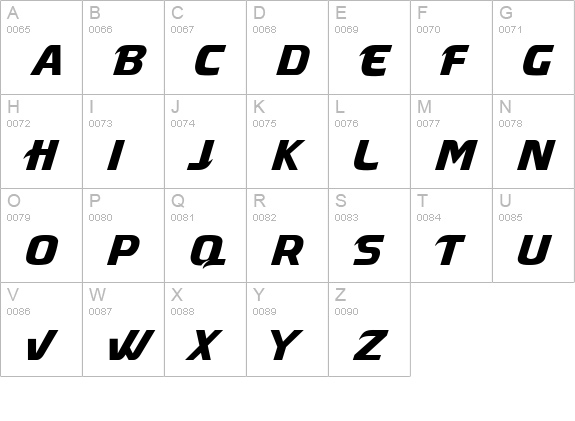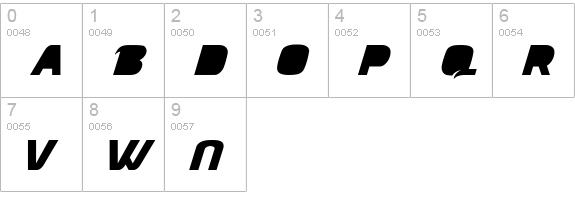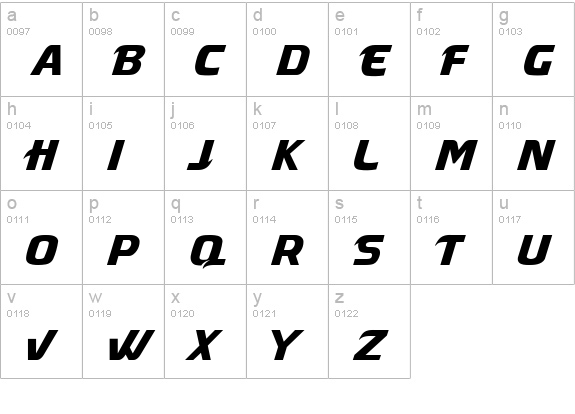
Masque Font Details
Introducing Masque Font, a beautifully crafted typeface that exudes elegance and sophistication. With its sleek and modern design, Masque Font is perfect for adding a touch of class to any project. Its clean lines and refined curves create a sense of balance and harmony, making it an ideal choice for both digital and print designs. But what truly sets Masque Font apart is its versatility. Whether you're designing a logo, creating a stunning website, or crafting eye-catching social media graphics, this font will effortlessly elevate your work to new heights. Its timeless appeal ensures that it will remain relevant for years to come, making it a valuable asset for any designer or creative. And the best part? Masque Font is absolutely free! That's right, this exceptional typeface can be downloaded at no cost from FontsMarket.com. We believe that great design should be accessible to all, and with Masque Font, you can bring a touch of luxury into your projects without breaking the bank. So why wait? Enhance your designs with Masque Font today. Download it for free at FontsMarket.com and unlock a world of possibilities. Whether you're a professional designer or a passionate hobbyist, this font is sure to become a staple in your creative toolkit. Embrace the elegance and effortless beauty of Masque Font and watch your designs come to life.